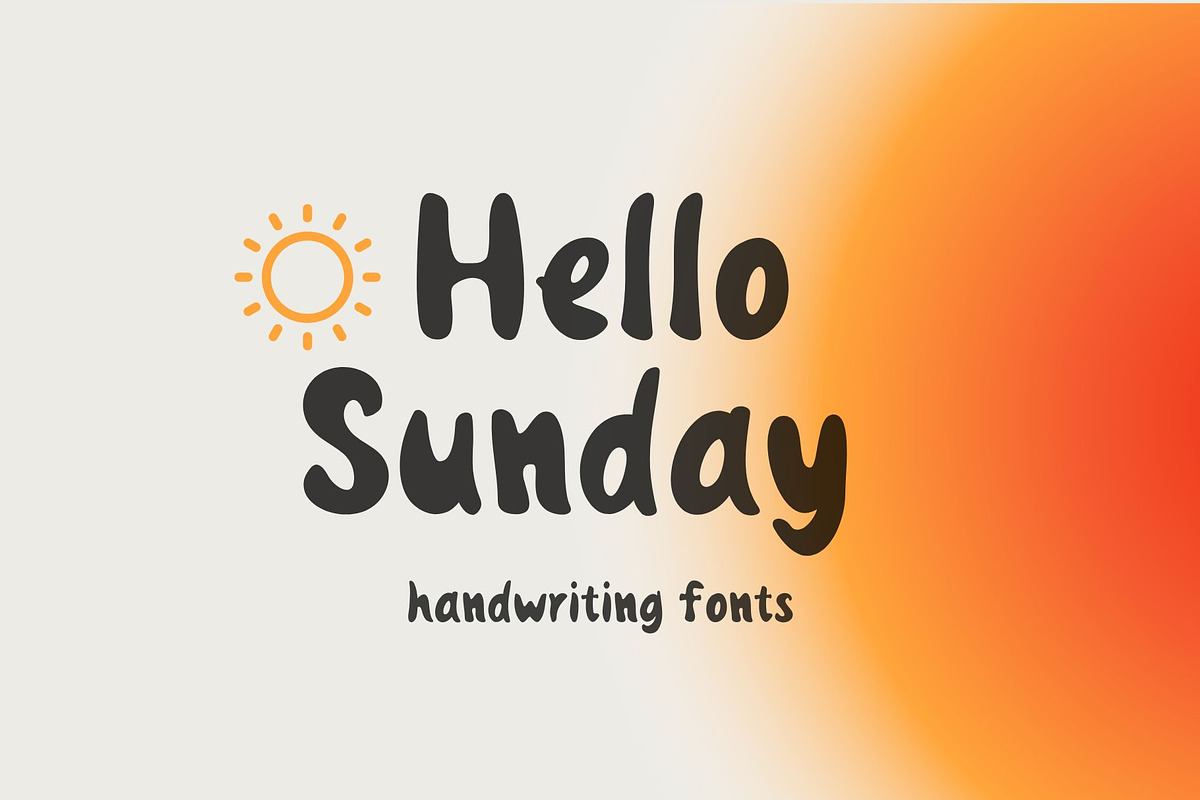
Hello Sunday Handwriting Font Free Download
Start your designs on a cheerful note with Hello Sunday Handwriting Font Free Download. This charming handwritten typeface is full of warmth and personality, perfect for planners, greeting cards, social media content, lifestyle branding, and anything that needs a cozy, inviting feel.
With its smooth strokes and natural flow, Hello Sunday captures the casual elegance of real handwriting. The font includes uppercase and lowercase letters, numerals, punctuation, and lovely ligatures—making it a great option for testing your ideas in both digital and print layouts.